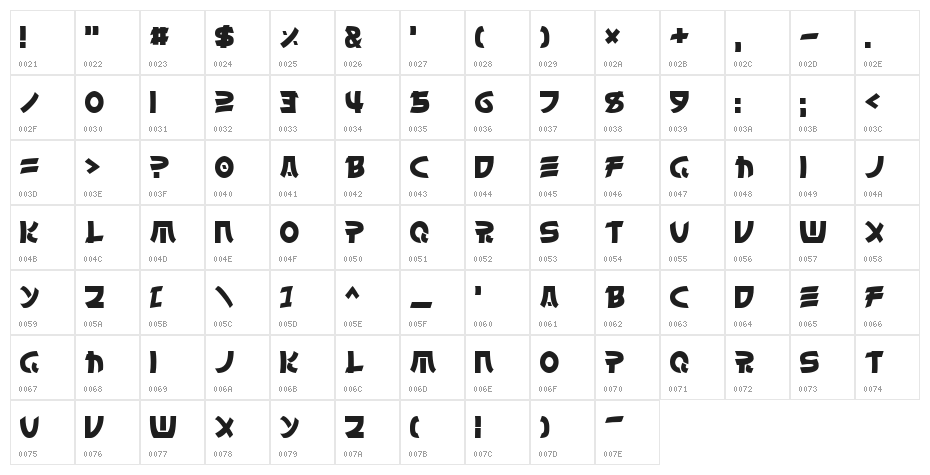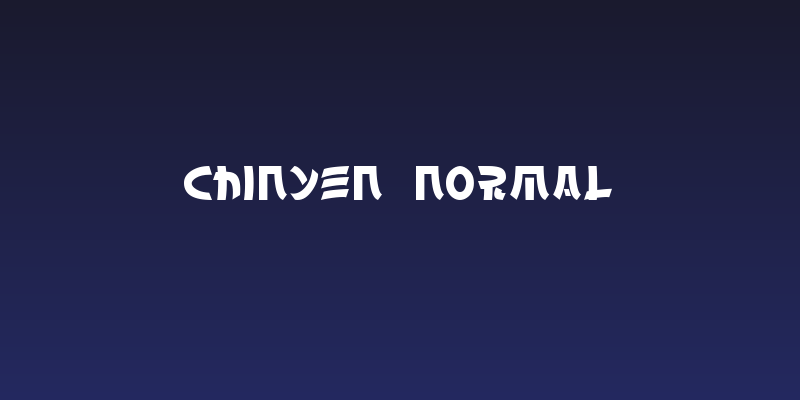
Chinyen Normal Font
Chinyen Normal Description
This font features a bold and dynamic style with a distinctly modern and artistic flair. The characters are crafted with unique geometric shapes and sharp angles, giving them a futuristic and edgy appearance. The uppercase and lowercase letters share a consistent design language, with some letters incorporating unexpected curves and cuts that add to the overall visual interest. The numbers and special characters maintain this cohesive style, ensuring versatility across different uses. The font's boldness makes it stand out, while the intricate details provide a sense of movement and energy.